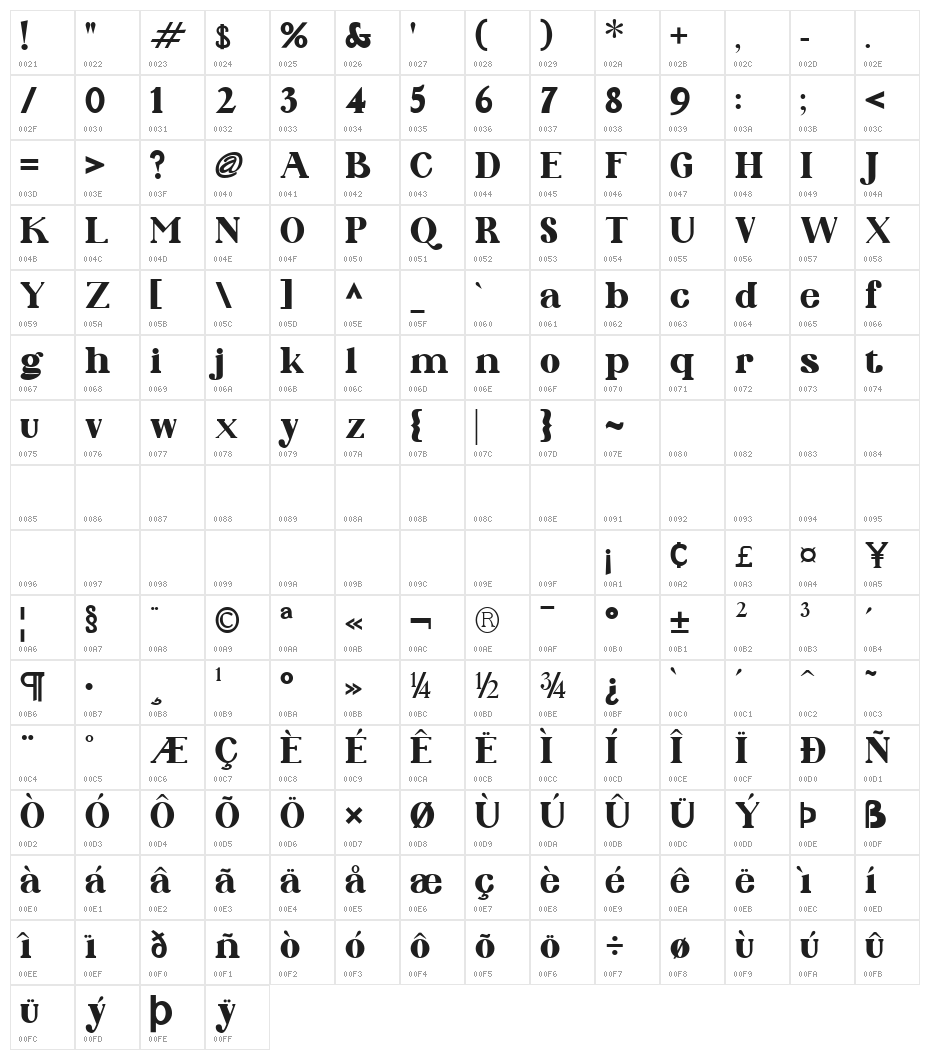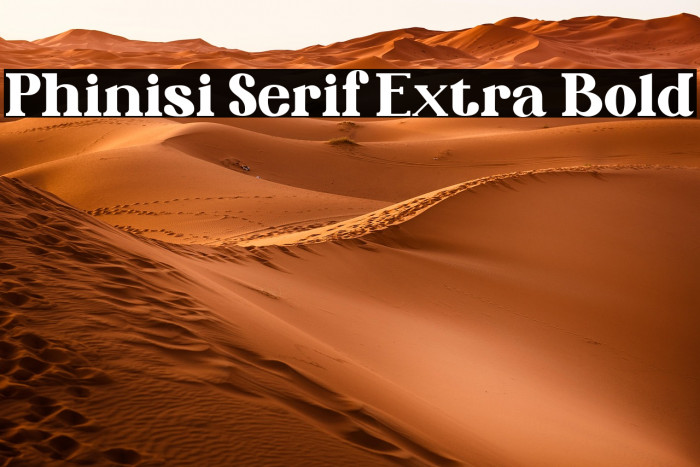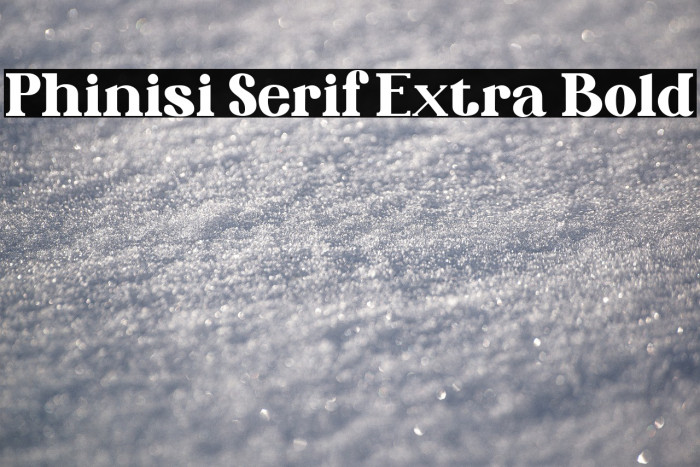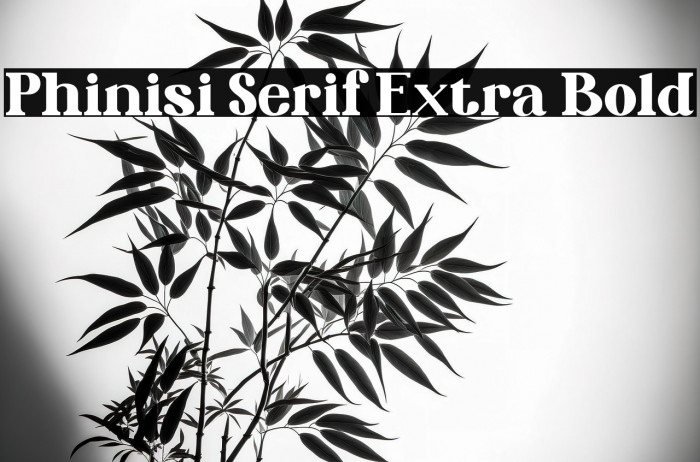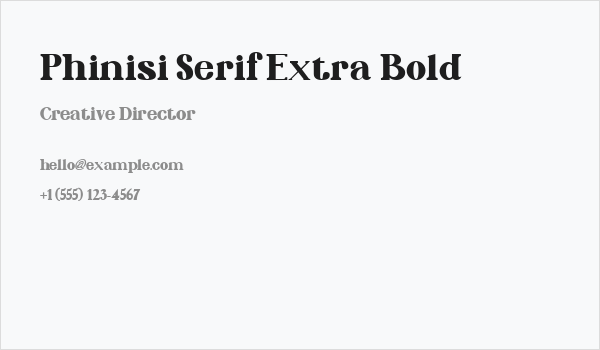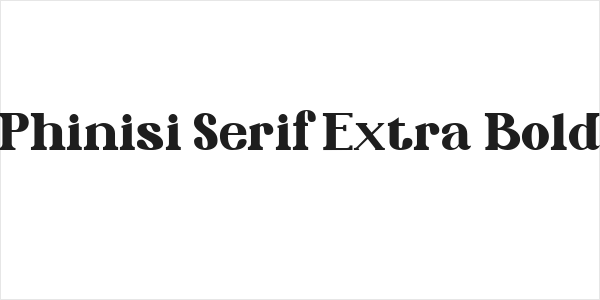
Phinisi Serif Extra Bold Font
Phinisi Serif Extra Bold Description
This font features a bold and commanding presence with its extra-bold weight and distinct serif style. The characters are designed with strong, thick strokes that provide a high contrast between the thick and thin elements, enhancing readability and impact. The serifs are pronounced, adding a classic touch to the overall modern aesthetic. The uppercase and lowercase letters maintain a consistent style, with the numerals and special characters complementing the alphabetic characters seamlessly. The spacing between characters is normal, ensuring clarity and legibility across various applications.
| Proposed Projects | This font is perfect for headlines, posters, branding materials, and any project requiring a strong, authoritative typeface. |